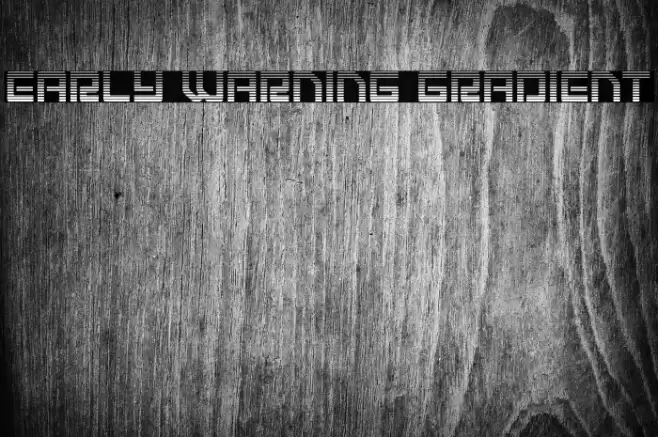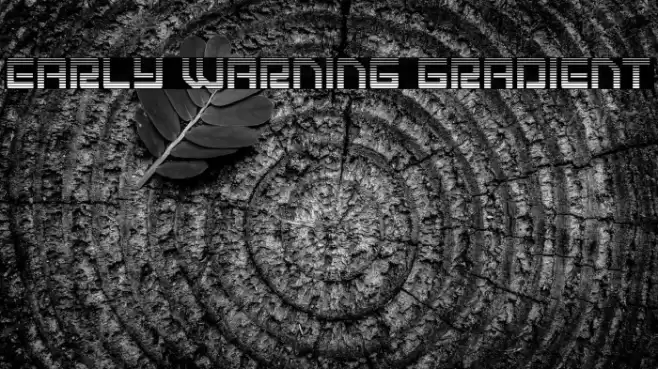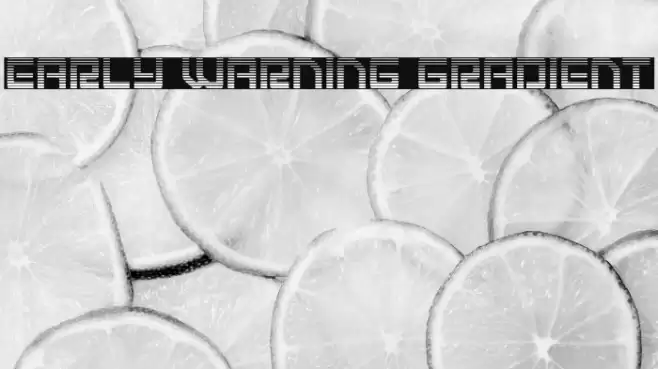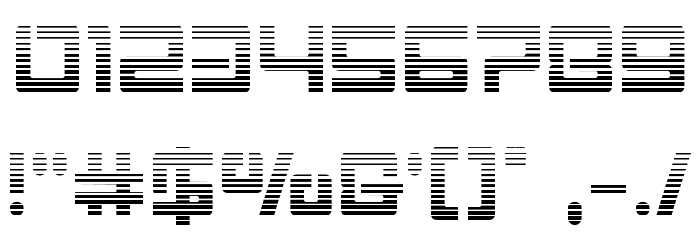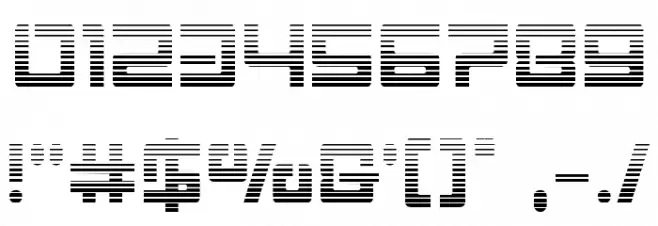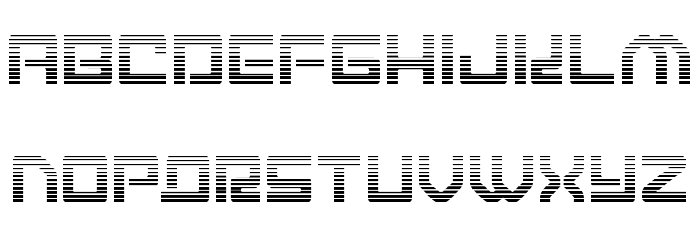
Early Warning Gradient Font
Early Warning Gradient Description
This font features a unique, futuristic design characterized by horizontal lines creating a gradient effect. Each character is composed of multiple parallel lines, giving a sense of movement and dynamism. The uppercase and lowercase letters maintain a consistent style, with rounded edges and a geometric structure. The numbers and special characters follow the same design principles, ensuring uniformity across the font. This style is particularly eye-catching and modern, making it suitable for projects that require a bold and innovative look.
A futuristic font with a gradient effect created by parallel horizontal lines from Uncategorized fonts.
- Proposed Projects: Ideal for sci-fi themed designs, technology branding, modern posters, and digital artwork.